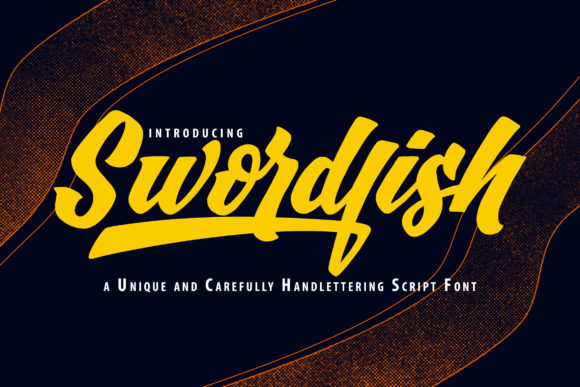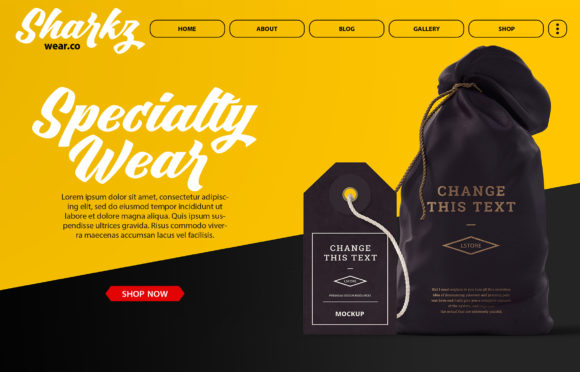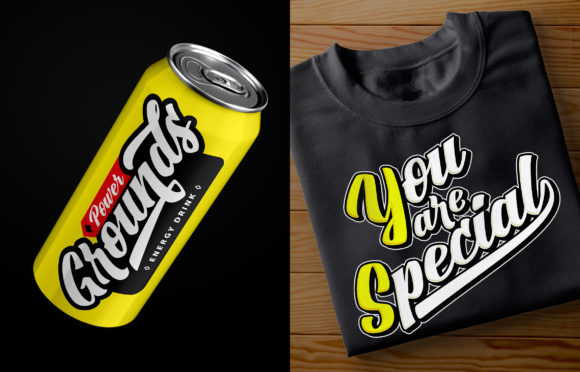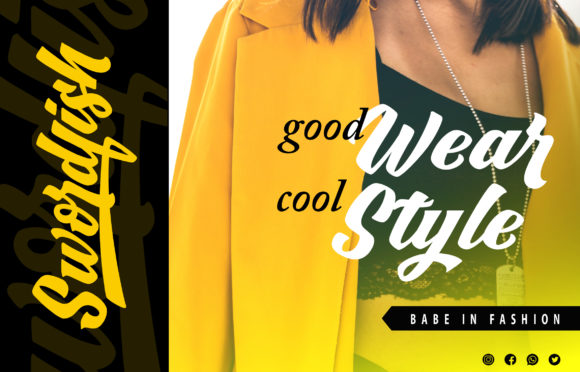
Swordfish Font
About Swordfish Font
Swordfish is a cute and casual handwritten font with an incredibly friendly feel. This fantastic font is best suited for headlines of all sizes, as well as for blocks of text that have both maximum and minimum variations.